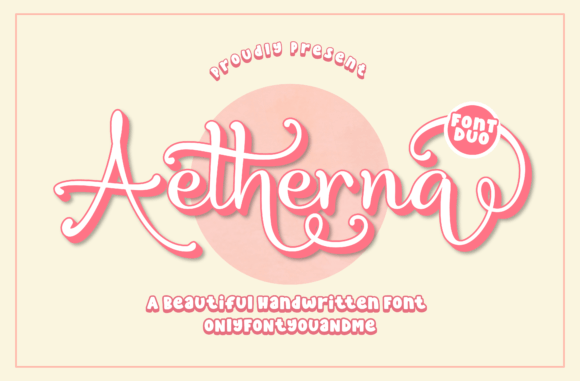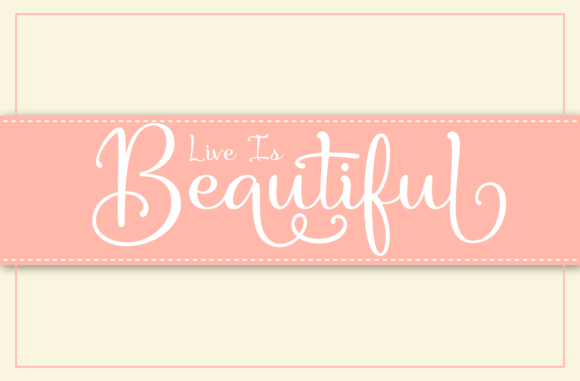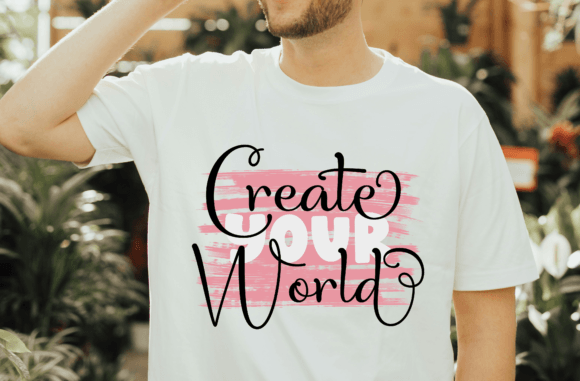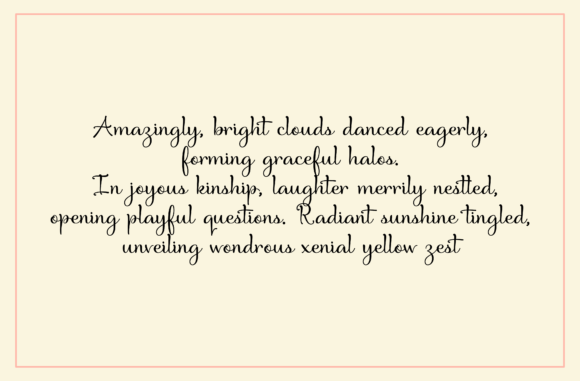
Aetherna Font: Elegant Handwritten Script for Wedding & DIY Projects
About the Aetherna Font
Discover the charm of Aetherna Font. This font is a perfect blend of modern aesthetics and classic appeal. Aetherna is a Elegance Font embodies the essence of handwritten beauty. With its fluid curves and delicate lines, every letter tells a story, inviting you to immerse yourself in the artistry of expression. Whether adorning wedding invitations, branding materials, or heartfelt letters, this font adds a touch of sophistication and charm to any project. Let your words flow with the timeless elegance of Handcrafted Elegance Font, where every stroke is a brushstroke of inspiration.
Aetherna’s elegant, script-like nature makes it ideal for headlines, short text blocks on invitations or certificates, and logos requiring a touch of refined sophistication. It excels in branding for luxury goods, boutique businesses, or projects emphasizing handcrafted quality. Avoid using Aetherna for body text or UI elements; its delicate strokes are not easily legible at smaller sizes or in continuous paragraphs.
Pairing Aetherna with a clean sans-serif like Lato or a classic serif such as Garamond provides a strong contrast and visual balance, enhancing readability while maintaining the overall aesthetic. For a more playful approach, consider pairing it with a light, geometric sans-serif.
Aetherna projects a personality of refined elegance and subtle charm. Its flowing forms suggest a sophisticated, perhaps slightly romantic, brand identity, ideal for projects aiming for a timeless and high-quality feel.